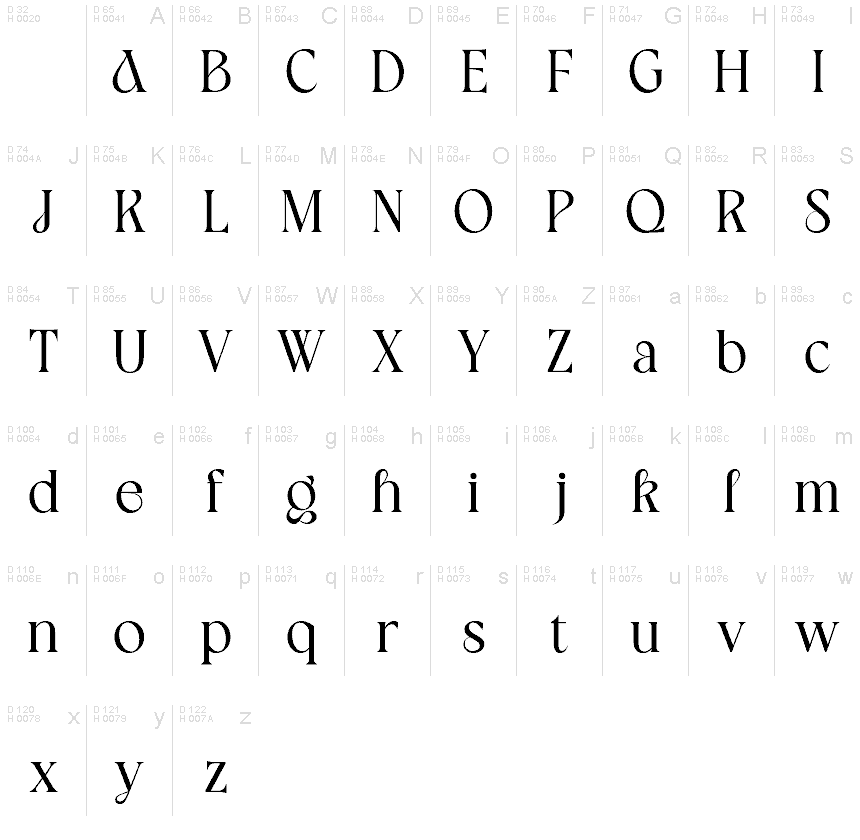
CS Blessing Regular Demo
CS Blessing font is a free serif style by Craft Supply Co. It features a bold modern twist with artistic flair, and the elegance and sophistication of classic typefaces. The font uses long lines, decorative elements, smooth arcs of letters to create an overall beautifully balanced combination in typed designs.
Such a stylish free font would shine on wedding invitations and stationery items as a whole; it can be used across any printed designs such as business cards, badges or labels. You will also love using it across posters or websites; try pairing it up with simple sans-serif fonts for crisper combinations.